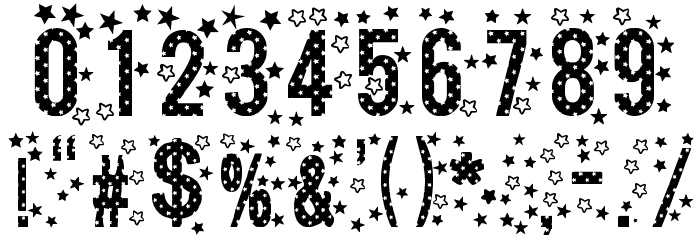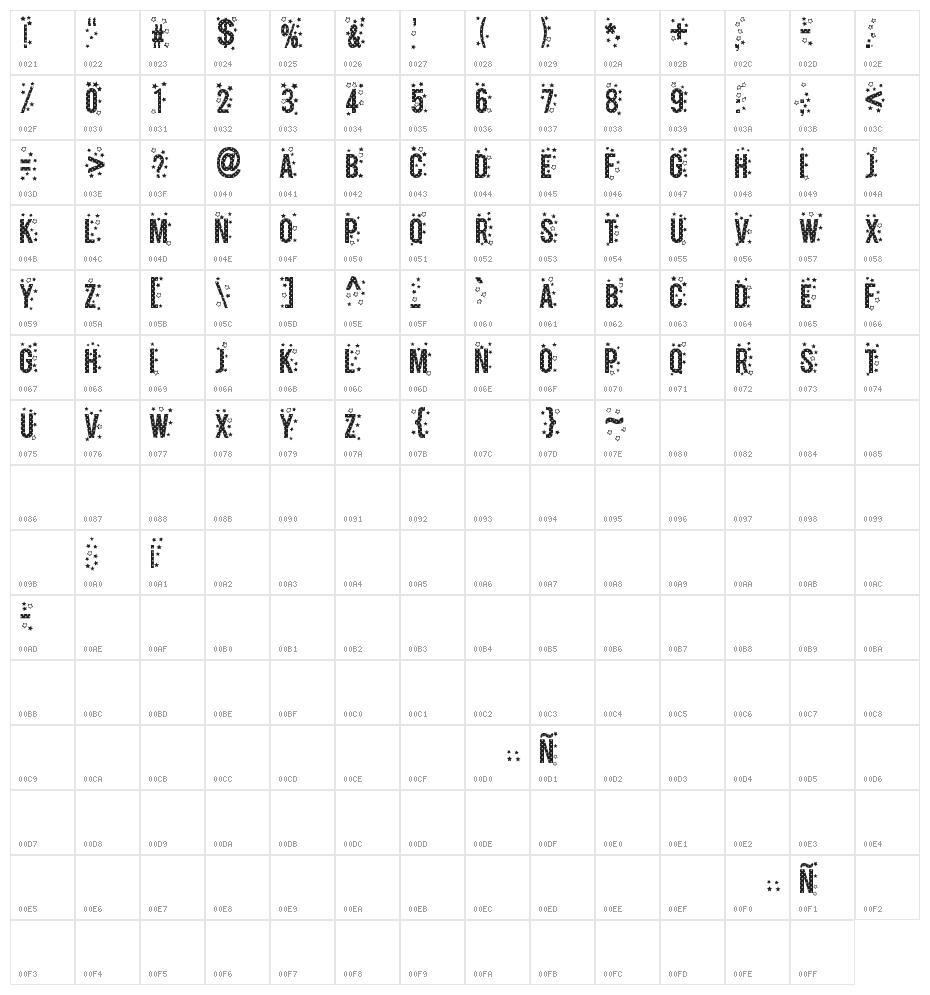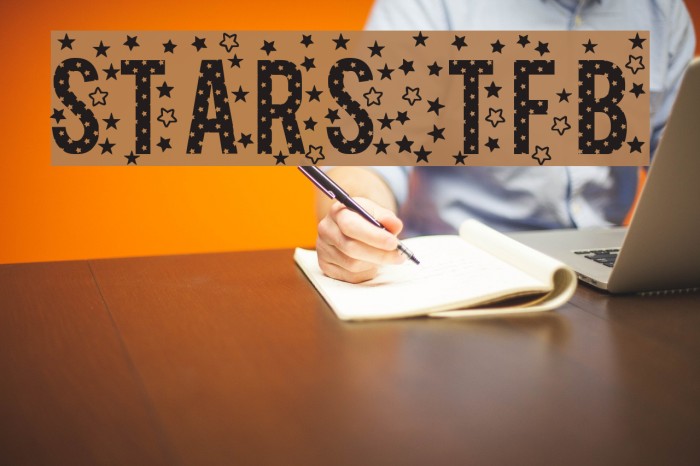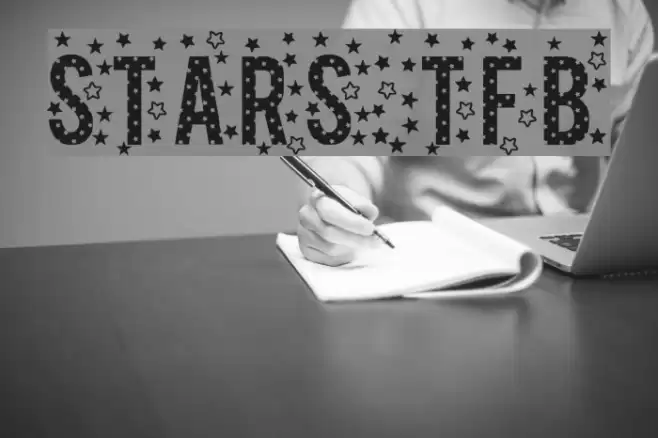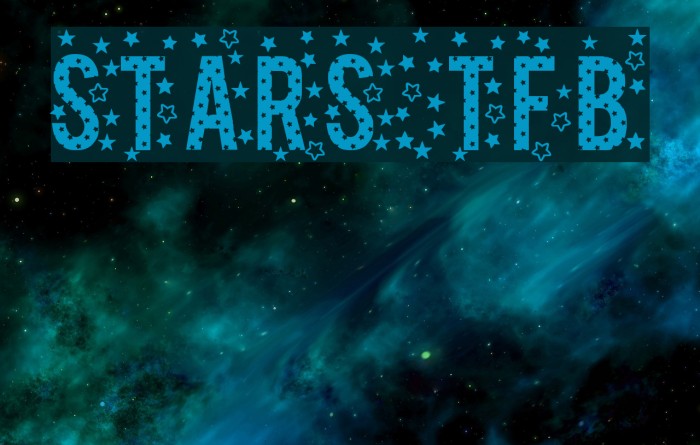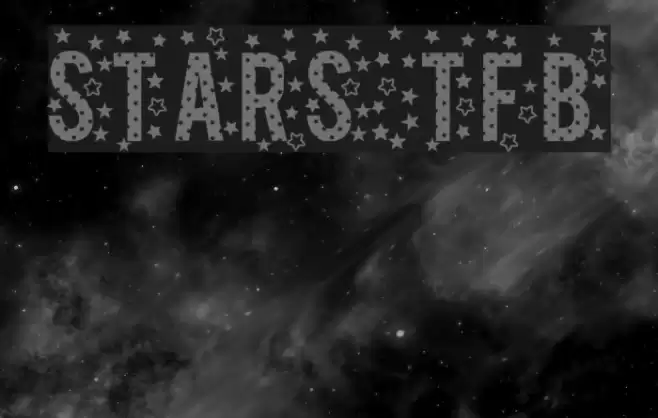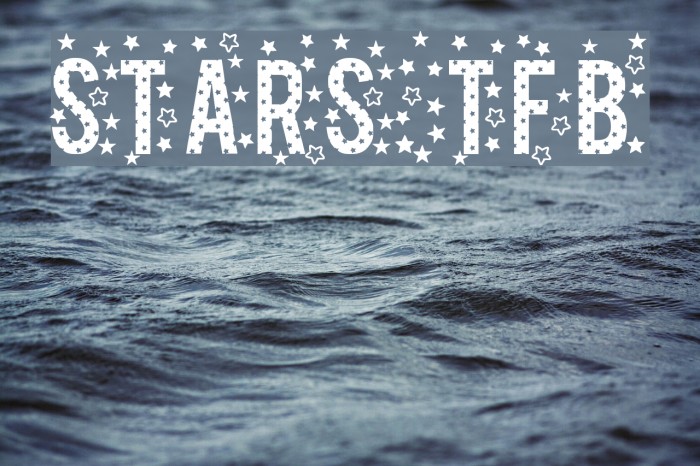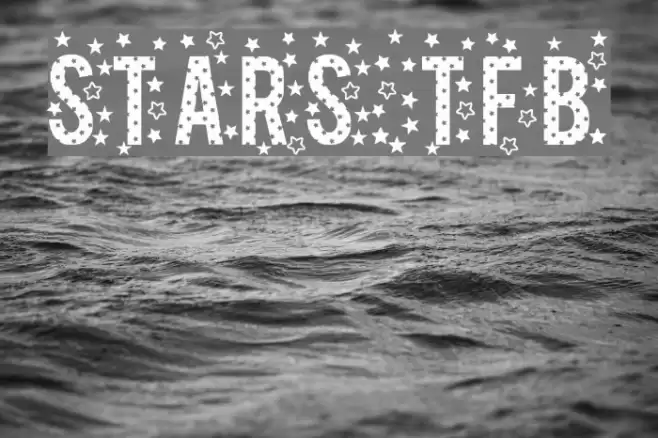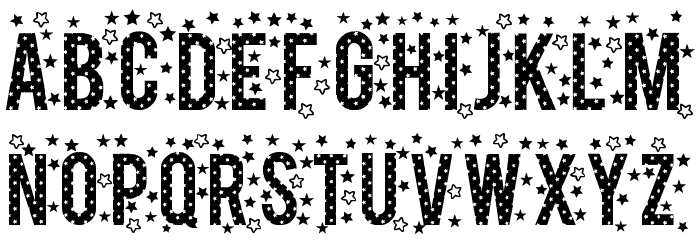
stars TFB Font
stars TFB Description
This decorative font features bold, uppercase and lowercase letters, numbers, and special characters filled with various sizes of stars. The stars create a playful and whimsical effect, making the font ideal for creative and fun projects. The characters are evenly spaced, ensuring readability despite the intricate design. The font's unique style is perfect for capturing attention and adding a touch of magic to any design.
| Proposed Projects | Ideal for children's book covers, party invitations, festive banners, and creative posters. |